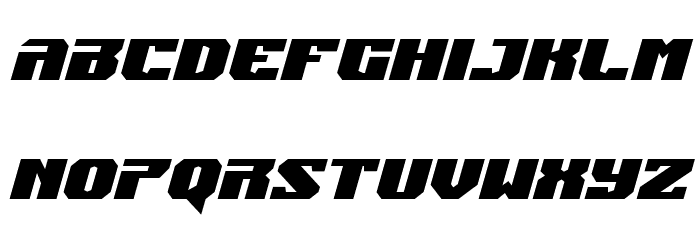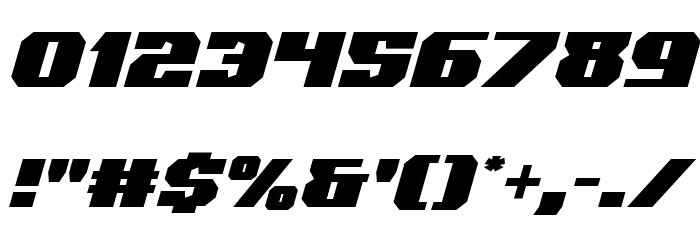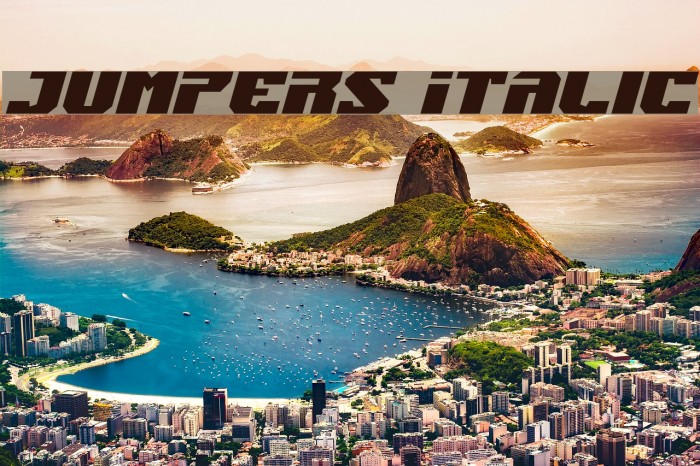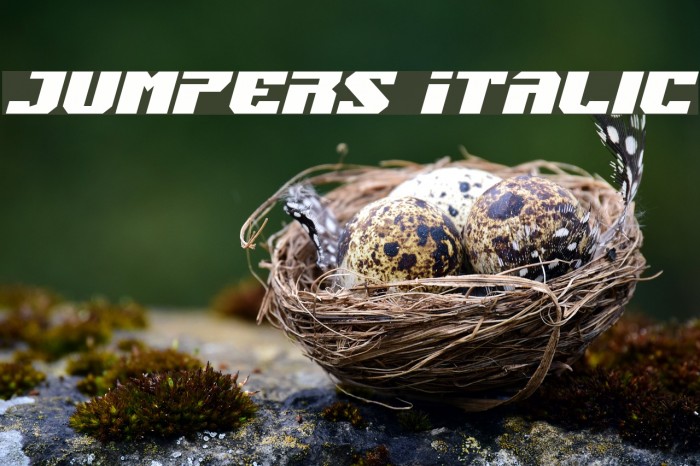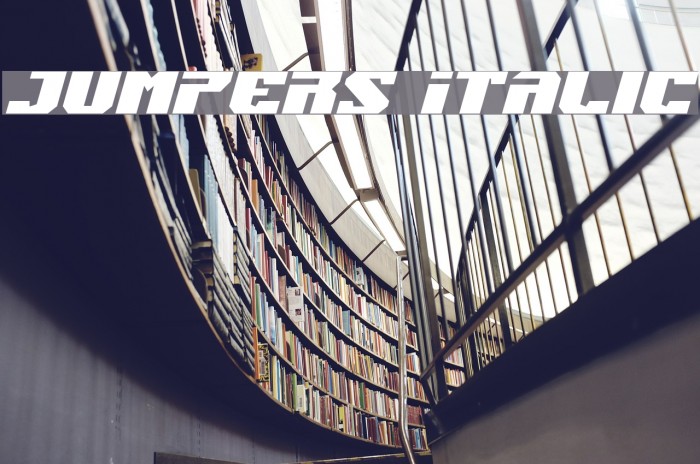
Jumpers Italic Font
This font features a bold, angular design with a strong geometric influence. The characters are sharply cut with a dynamic slant, giving a sense of motion and energy. The uppercase letters are particularly striking, with each character exhibiting a unique, edgy style that stands out. The numbers and special characters maintain this bold aesthetic, ensuring consistency across all glyphs. This font's distinctive look makes it ideal for projects that require a modern and impactful visual presence.
A bold, angular font with a dynamic, geometric style.
- Proposed Projects: Ideal for sports branding, dynamic posters, video game titles, and edgy logo designs.